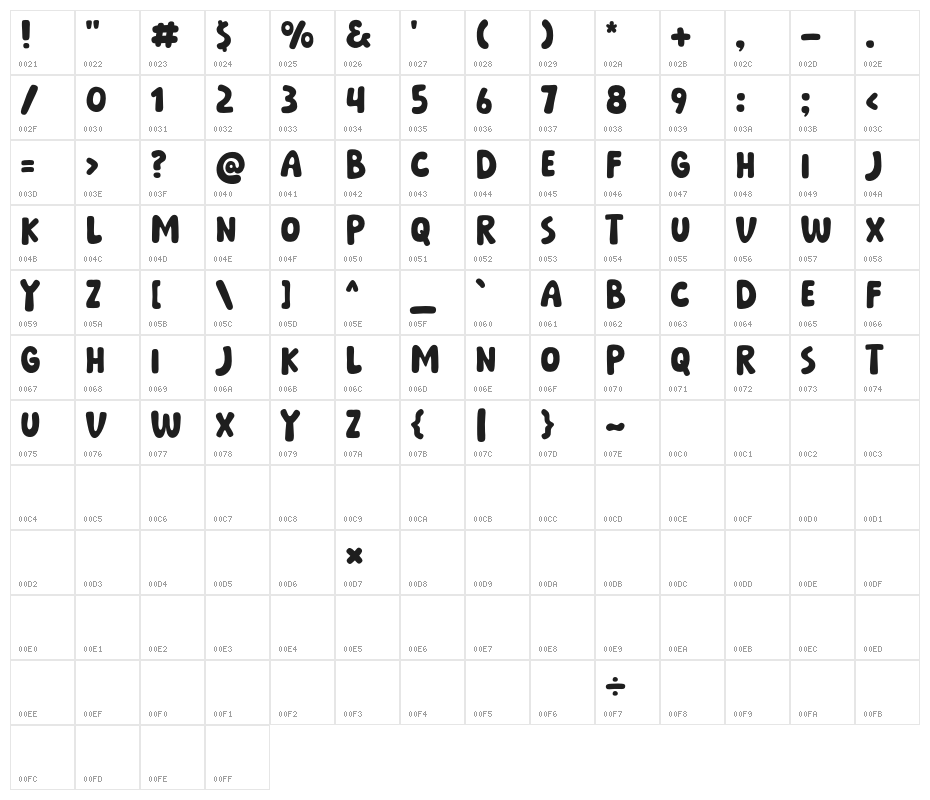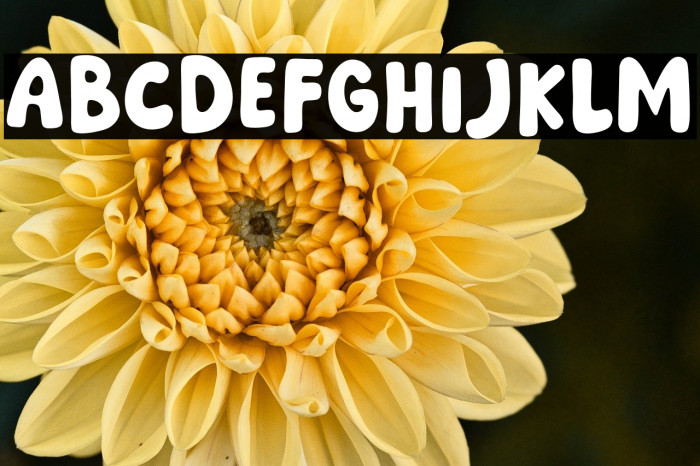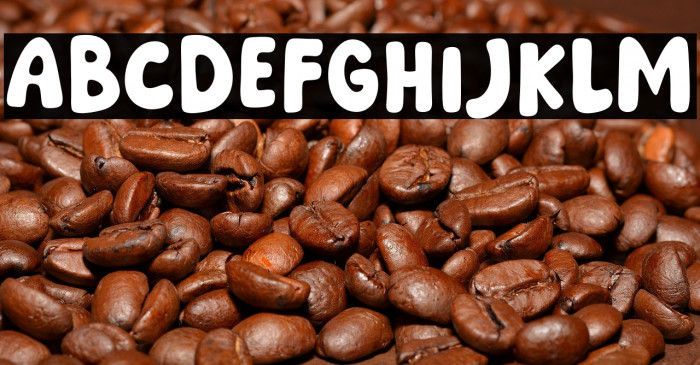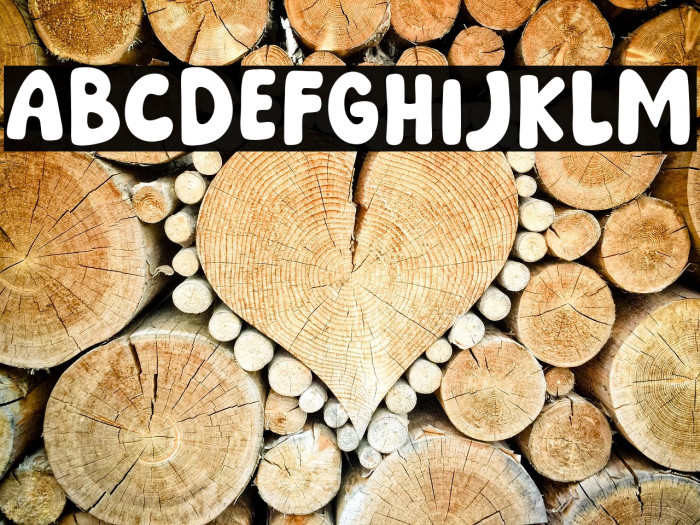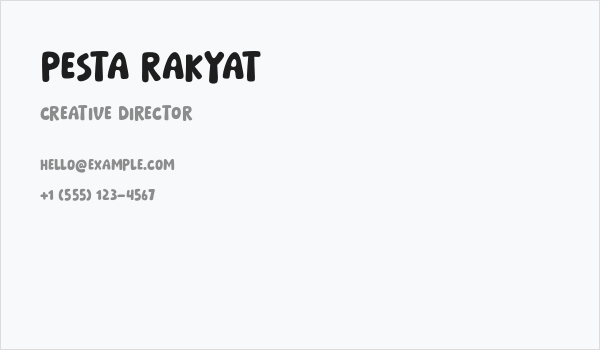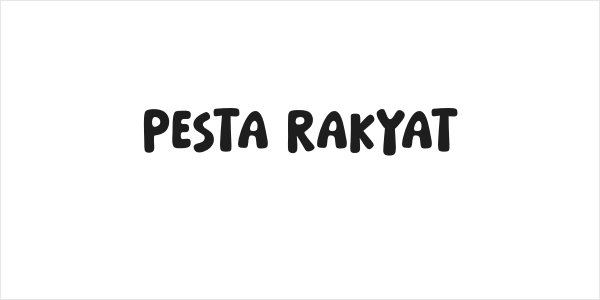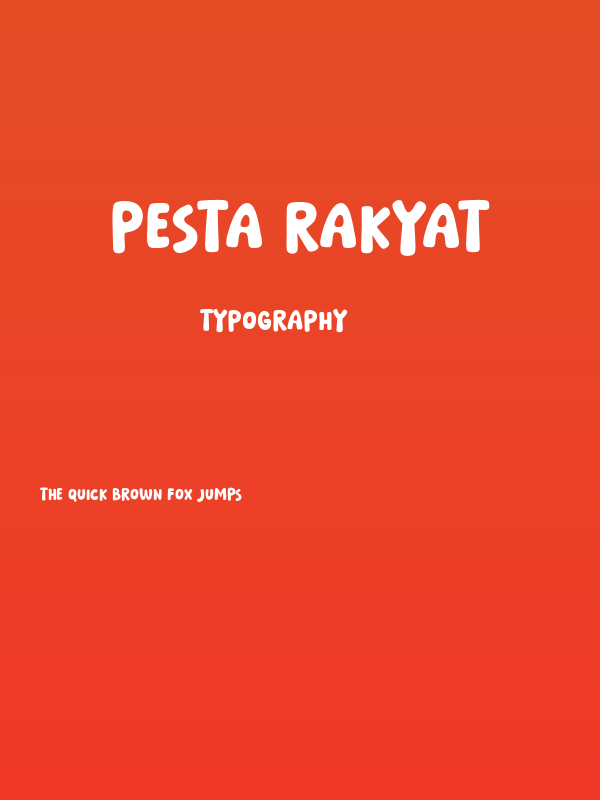
Pesta Rakyat Font
Pesta Rakyat Description
This font features a playful and bold design, characterized by its rounded and thick letterforms. The characters exhibit a hand-drawn quality, with smooth curves and a slightly irregular shape that adds to its casual and friendly appearance. The uppercase and lowercase letters maintain a consistent style, with a uniform thickness that ensures readability. The numbers and special characters follow the same design principles, making the font versatile for various uses. Its bold and approachable style makes it suitable for projects that require a fun and engaging visual impact.
| Overall Style | Playful, Casual |
| Use Case | Headlines, Posters, Branding |
| Proposed Projects | Ideal for children's books, posters, event flyers, and branding that requires a fun and approachable look. |